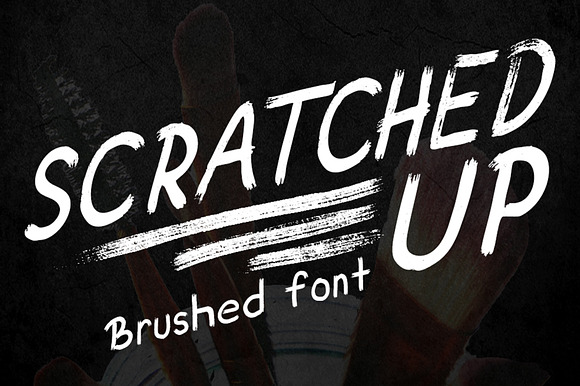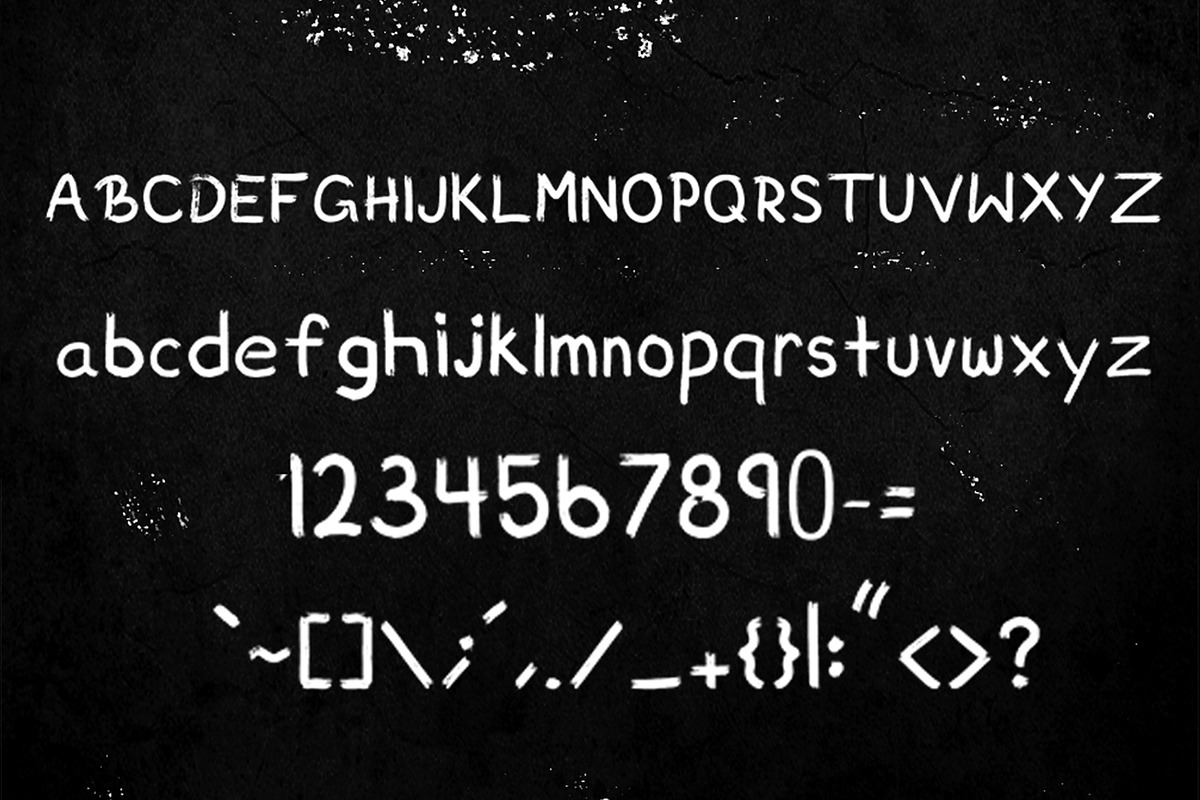
Scratched Up Handwritten Brush Font
Why Scratched Up Handwritten Brush Font is worth a look
Scratched Up Handwritten Brush Font by Etheric Media fits naturally into Branding, posters, packaging, typography.